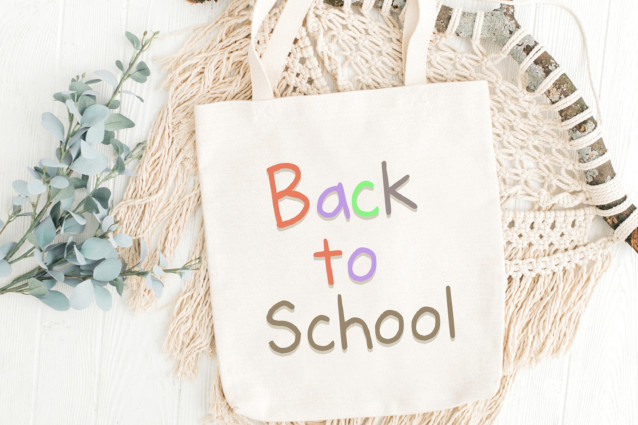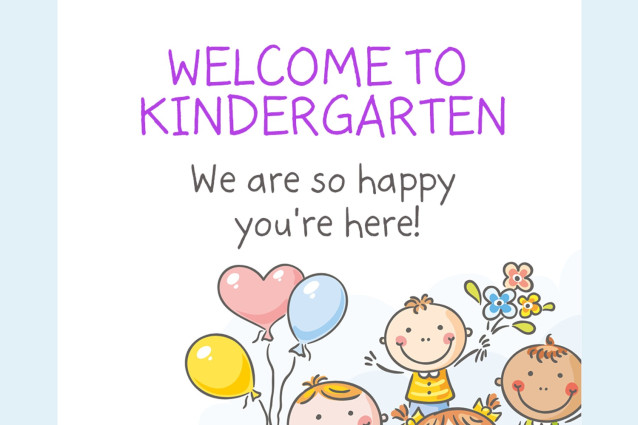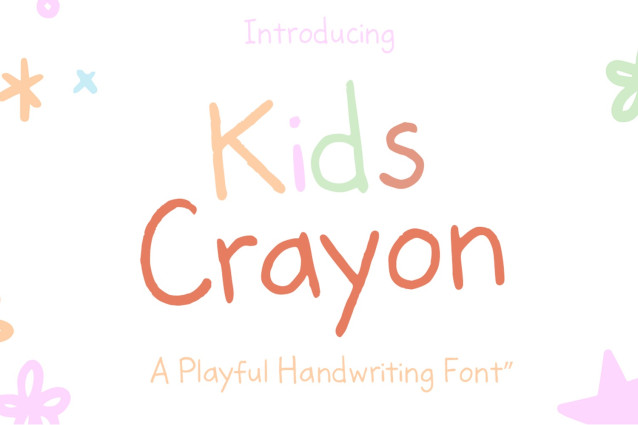
Kidscrayon Font
Kids Crayon Font is a handwritten, crayon-style font that evokes a cheerful, casual, and childlike feel. Each character has a hand-drawn appearance, perfect for a variety of children’s-themed designs.
This font is designed to be easy to read while remaining expressive, making it ideal for lighthearted and playful visuals.